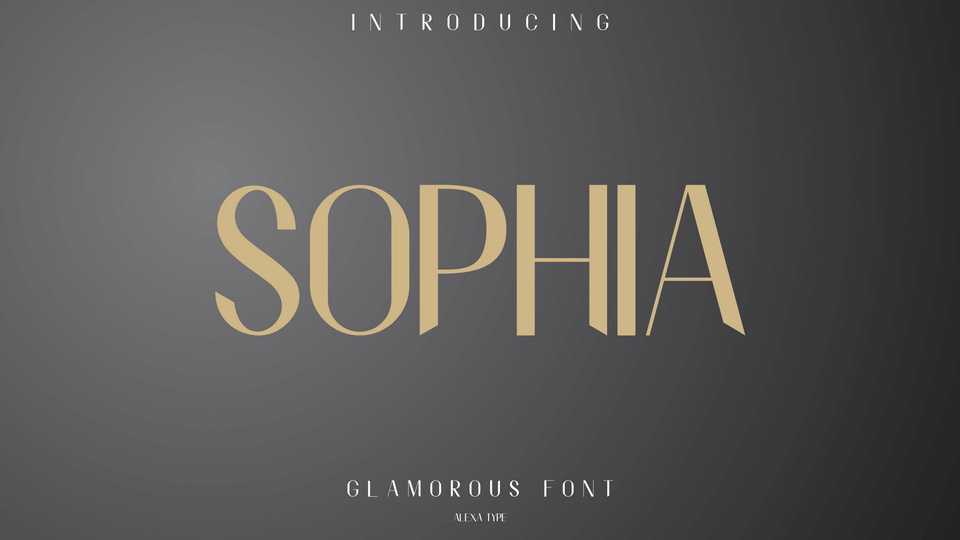
Download Sophia font, an elegant sans serif typeface. With modern and sophisticated vibe, the clean and sharp Sophia will bring your glamour side of your brand toward your loyal customer.
Designer: Alexatype